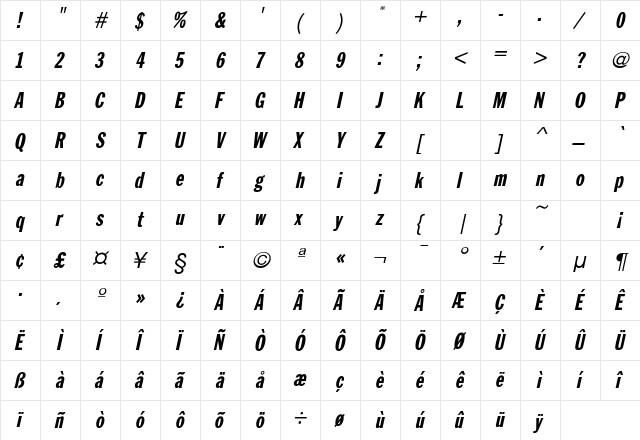
ZenherSSK Italic
Design Context for ZenherSSK Typeface
ZenherSSK is a composed and adaptable typeface that performs quietly and consistently across a wide range of design contexts. Its italic angle brings a sense of urgency and motion to the letterforms.
Pro Tip: Use ZenherSSK for emphasis, pull quotes, and subheadings where its slanted energy can add rhythm to the layout.